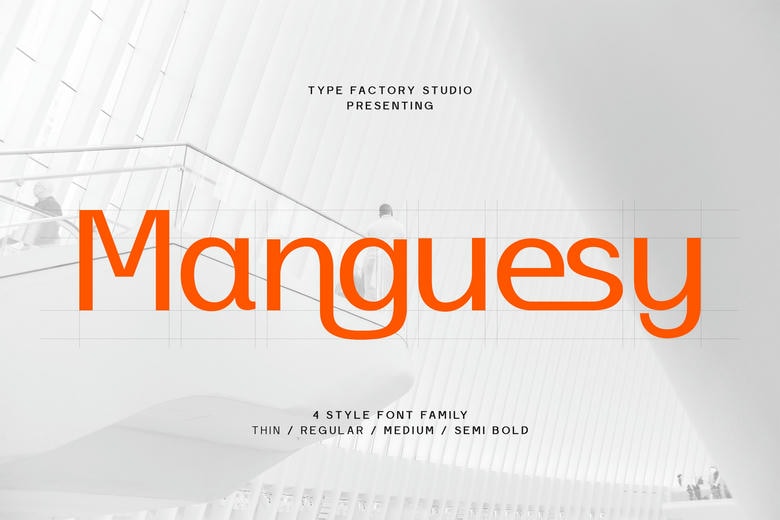
Manguesy Font Family
Manguesy is a contemporary corporate sans serif typeface constructed to incorporate clean geometry and proportions. The letterforms are designed with graceful curves, open counters and even a steady stroke weight, with a proper and well-organized visual rhythm.
Manguesy advocates fluid hierarchy in branding frameworks, web interfaces, editorial designs and presentation publications. The impartial construction enables it to excel in both headline and short paragraphs.
Manguesy Sans Serif Font Family